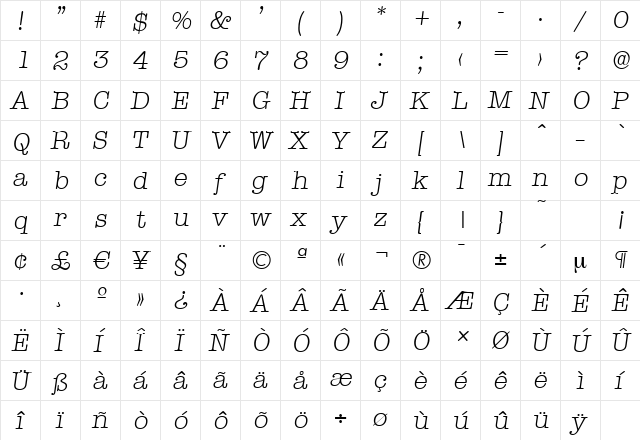
TypewriterSerial-Light Italic Font Preview
Design Context for TypewriterSerial-Light Typeface
TypewriterSerial-Light brings the precise, column-aligned rhythm of monospaced typography to designs that value technical clarity and systematic order. Its italic angle brings a sense of urgency and motion to the letterforms. The delicate stroke weight brings airiness and refinement to layouts.